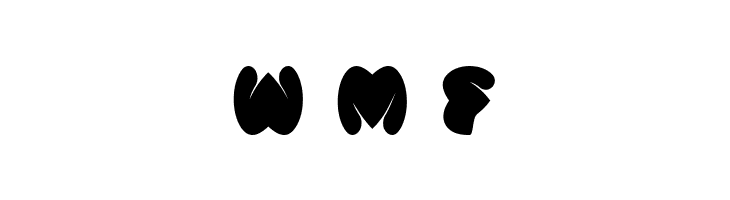
• TECHNOLOGY-Light
A bold, playful font with rounded, bubble-like characters and a modern, decorative style.
( Fonts by Southype )
A decorative font with floral embellishments on bold, rounded characters.
• The Grudge
( Jacqueline Diaz )
A distressed, hand-drawn font with chaotic, overlapping strokes for a grunge aesthetic.
• THE HAPPY FACE SMILE